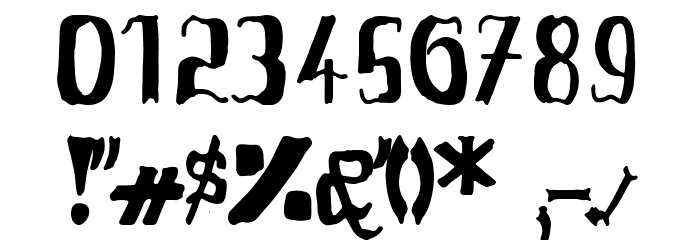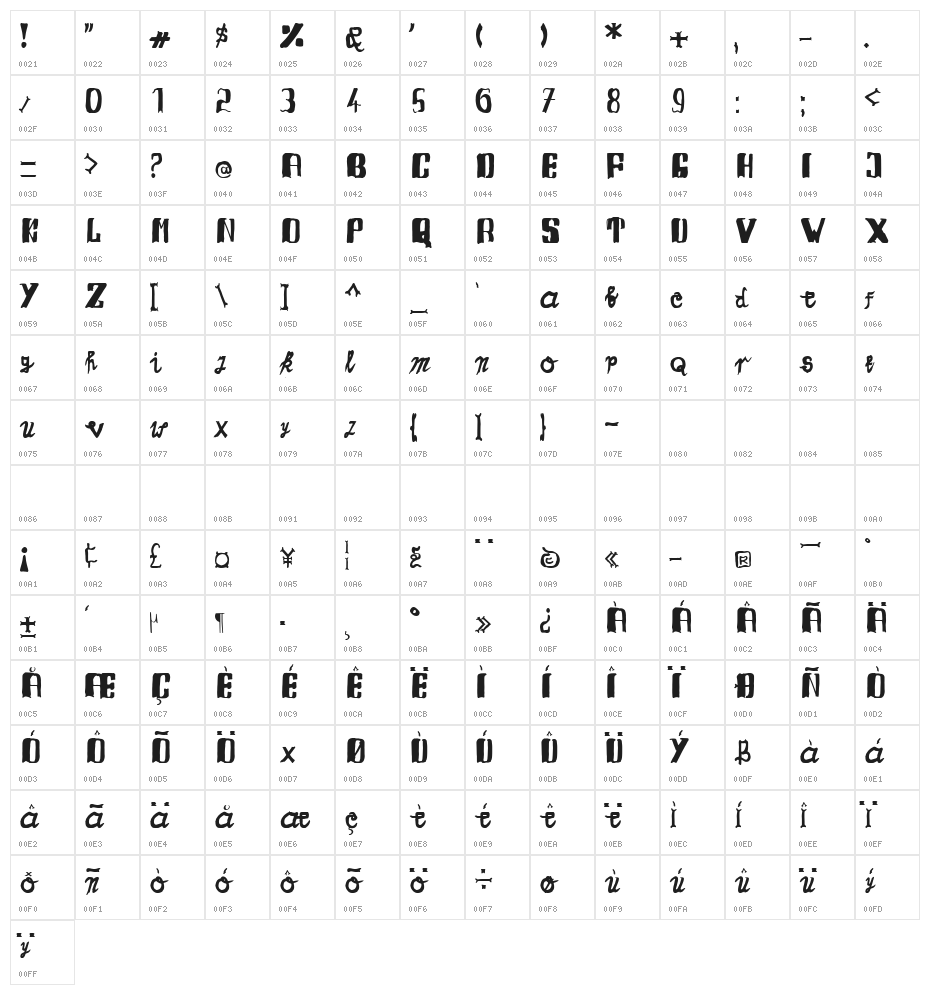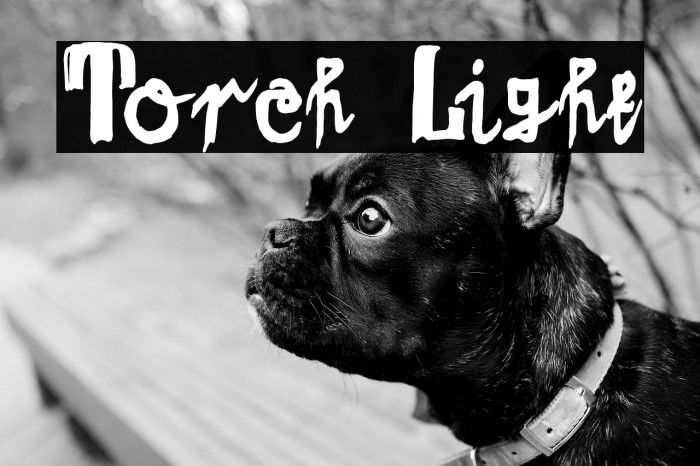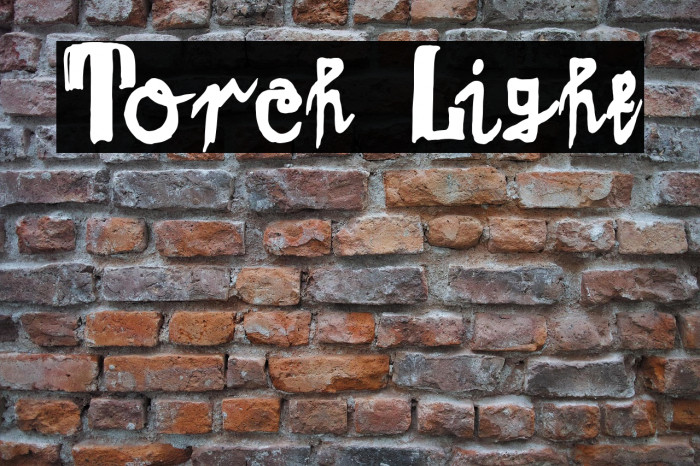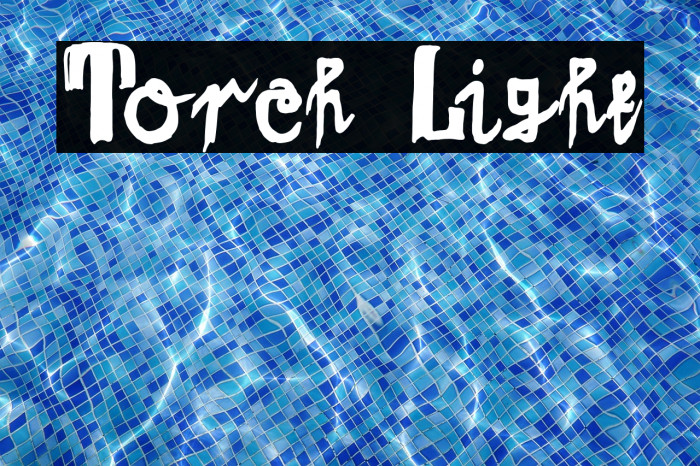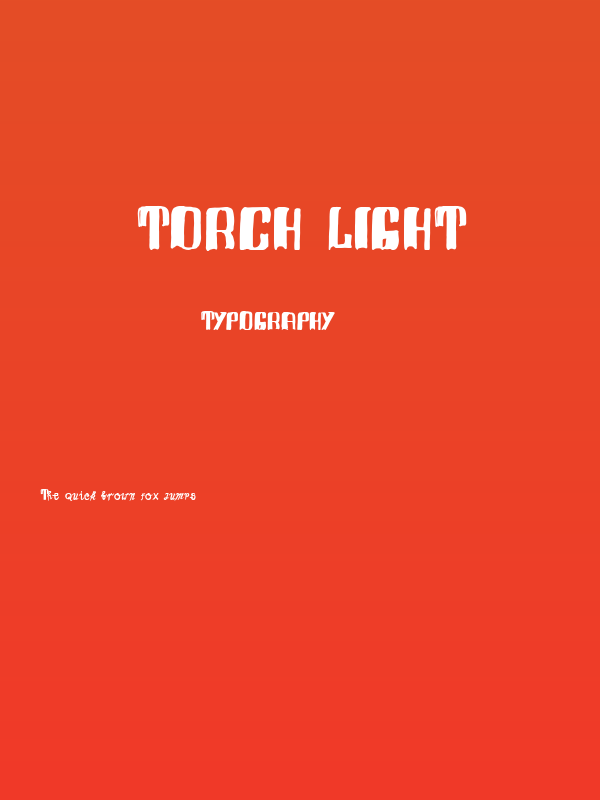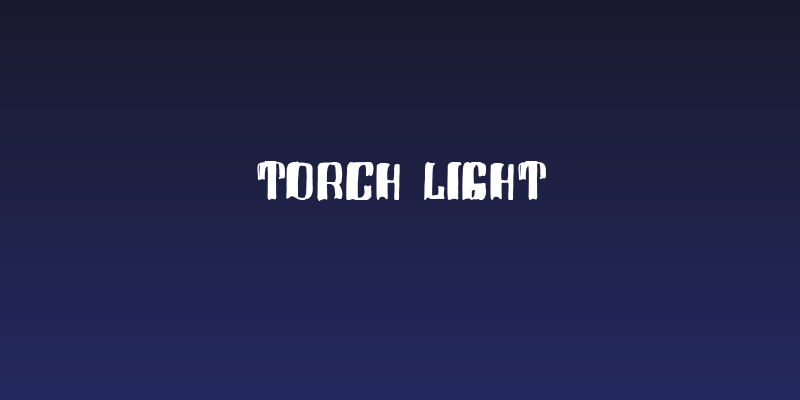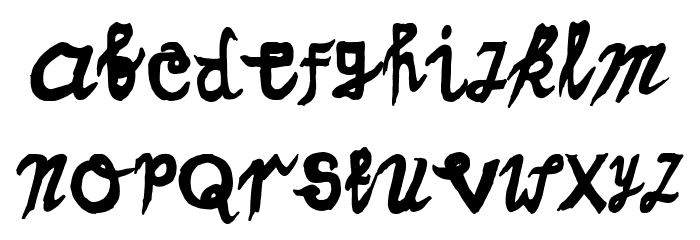
Torch Light Font
Torch Light Description
This font features a bold and dynamic style with a strong presence. The uppercase letters are characterized by thick strokes and sharp edges, giving them a robust and impactful appearance. The lowercase letters maintain a similar boldness but introduce a more fluid and slightly cursive element, adding a touch of elegance and movement. The numbers are consistent with the bold style, ensuring readability while maintaining the overall aesthetic. Special characters are creatively designed, integrating seamlessly with the rest of the font. This font's unique combination of boldness and slight cursive elements makes it stand out, offering a distinctive look that is both modern and slightly vintage.
| Overall Style | Modern, Vintage |
| Proposed Projects | Ideal for posters, branding, album covers, and any project requiring a bold, eye-catching typeface. |